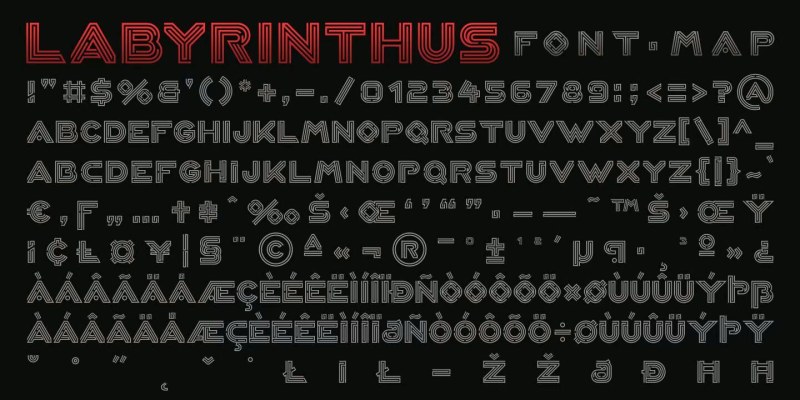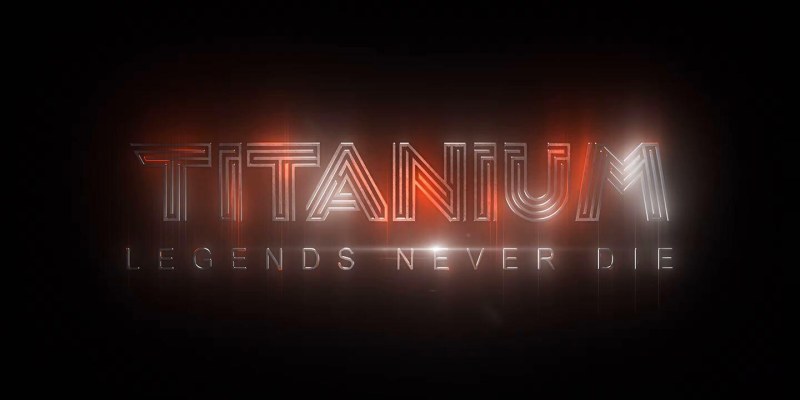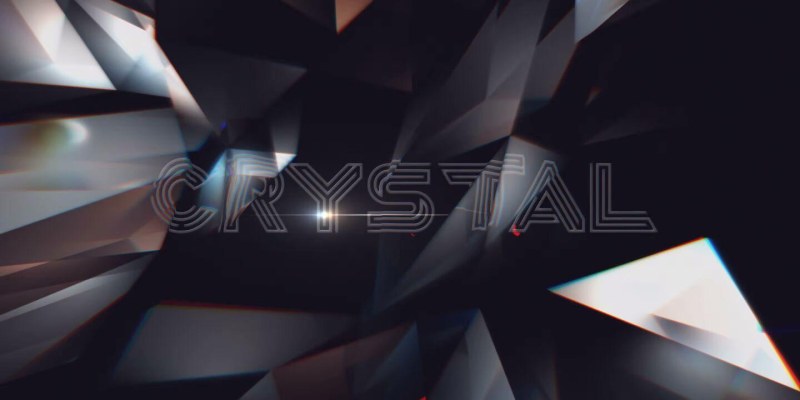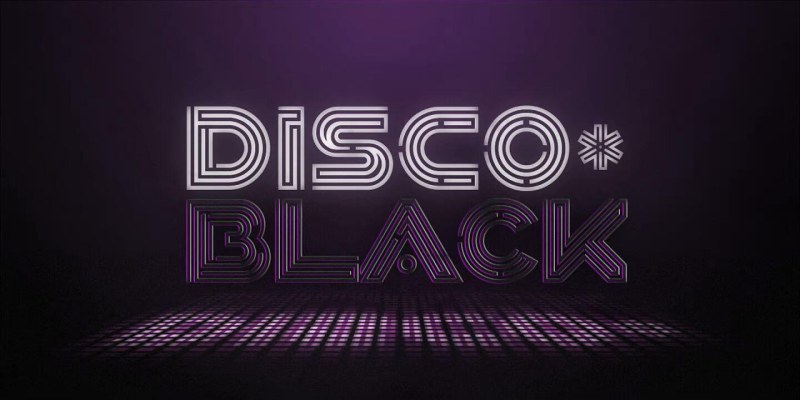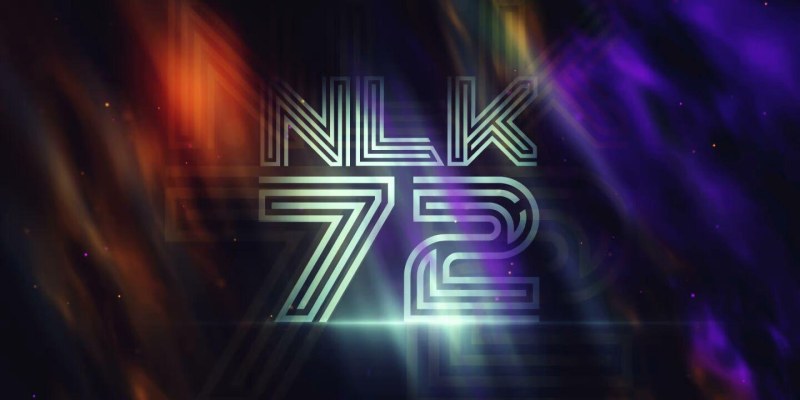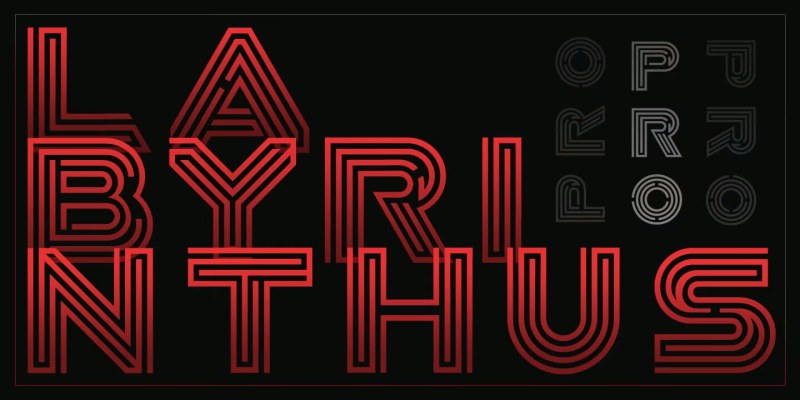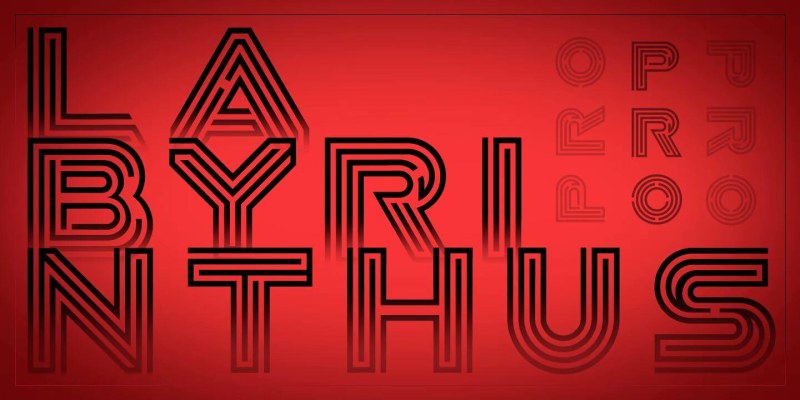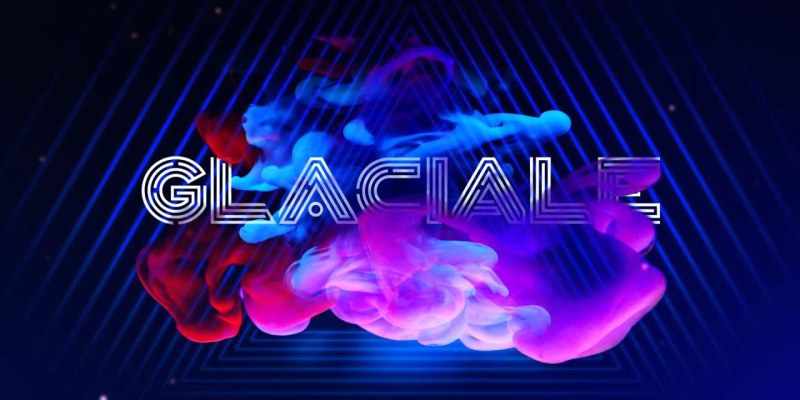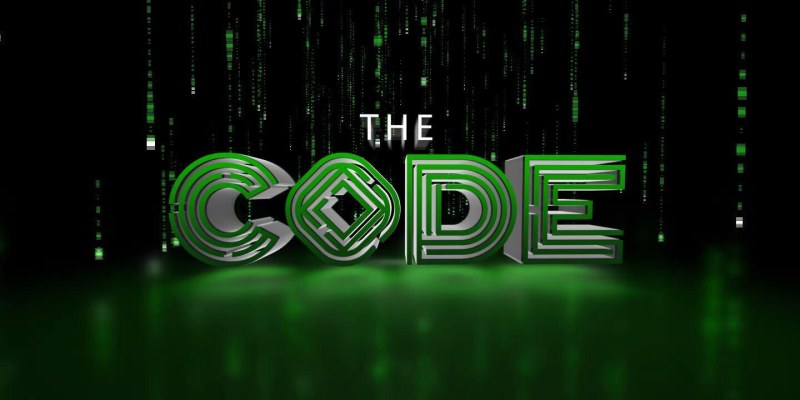
Labyrinthus Pro Font
Labyrinthus Pro is a multiline decorative font, works very well as a type of identity logo, poster and 3d works. It continues the tradition of precedent Labyrinthus but…
Labyrinthus Pro is a multiline decorative font, works very well as a type of identity logo, poster and 3d works. It continues the tradition of precedent Labyrinthus but with a hard linear impact. Its interesting to note that with it its possible to play with the multiline concept to create endless overlapping geometric creations.
Where Labyrinthus Pro Font works best
Labyrinthus Pro Font is built for size: event posters, hero headlines and billboard-style layouts.
High contrast display type like Labyrinthus Pro Font reads instantly in thumbnails and motion graphics.
What is Labyrinthus Pro Font good for?